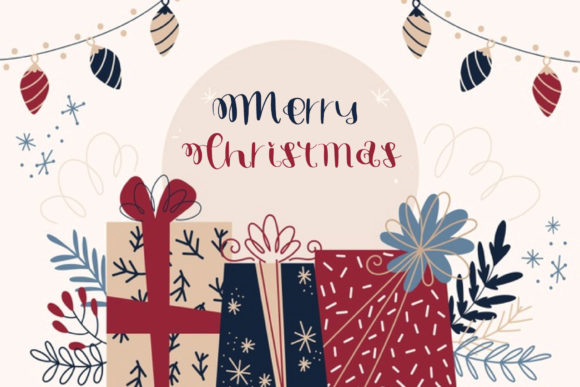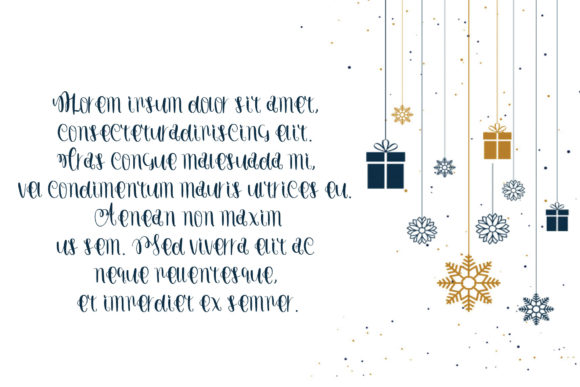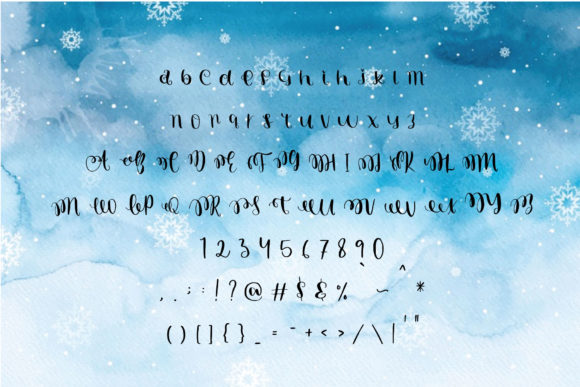
Introducing the Biggest Santa Font: A Delicate and Elegant Handwritten Masterpiece
Are you tired of using the same old fonts for your designs? Look no further! The Biggest Santa font is here to take your creations to the next level. This delicate and elegant handwritten font is sure to capture your heart with its distinct and well-rounded letters. In this article, we’ll dive into the world of Biggest Santa and explore its incredible versatility, perfect for designers and crafters alike.
The Story Behind Biggest Santa
The Biggest Santa font is a carefully crafted handwritten font, designed to bring a touch of elegance and sophistication to your designs. Its unique and distinctive letters are carefully rounded to create a soft, yet striking appearance. Whether you’re working on a festive holiday project or a beautiful wedding invitation, Biggest Santa is the perfect choice.
What Makes Biggest Santa So Special?
So, what sets Biggest Santa apart from other fonts? Here are just a few reasons why this font is a masterpiece:
- Delicate and Elegant: Biggest Santa boasts a delicate and elegant style that’s perfect for creating sophisticated designs. Its refined letters exude a sense of luxury and refinement.
- Distinct and Well-Rounded Letters: The font’s distinct and well-rounded letters make it stand out from the crowd. Each letter is carefully crafted to create a beautiful, flowing script that’s a joy to behold.
- Incredibly Versatile: Biggest Santa is an incredibly versatile font that can be used for a wide range of projects. From festive holiday designs to beautiful wedding invitations, this font can do it all.
Uses for Biggest Santa
The possibilities are endless when it comes to using Biggest Santa. Here are just a few ideas to get you started:
- Holiday Designs: Create stunning holiday designs, such as Christmas cards, invitations, and decorations, with Biggest Santa.
- Wedding Invitations: Add a touch of elegance to your wedding invitations and stationery with this beautiful font.
- Branding and Packaging: Use Biggest Santa to create eye-catching branding and packaging that stands out from the competition.
- Digital Art: Create stunning digital art, such as wallpapers, social media graphics, and more, with Biggest Santa.
Tips for Using Biggest Santa
Here are a few tips for getting the most out of Biggest Santa:
- Experiment with Colors: Try pairing Biggest Santa with a range of colors to create unique and eye-catching designs.
- Play with Sizes: Experiment with different font sizes to create visual interest and hierarchy in your designs.
- Mix and Match: Combine Biggest Santa with other fonts to create stunning contrast and visual interest.
In conclusion, the Biggest Santa font is a delicate and elegant handwritten masterpiece that’s perfect for designers and crafters alike. Its distinct and well-rounded letters make it a standout font that’s incredibly versatile and easy to use. Whether you’re working on a festive holiday project or a beautiful wedding invitation, Biggest Santa is the perfect choice. So why wait? Fall in love with Biggest Santa today and take your designs to the next level!
Biggest Santa is a delicate and elegant handwritten font. Its distinct and well-rounded letters make this font a masterpiece. Fall in love with its incredibly versatile style and use it to create spectacular designs!